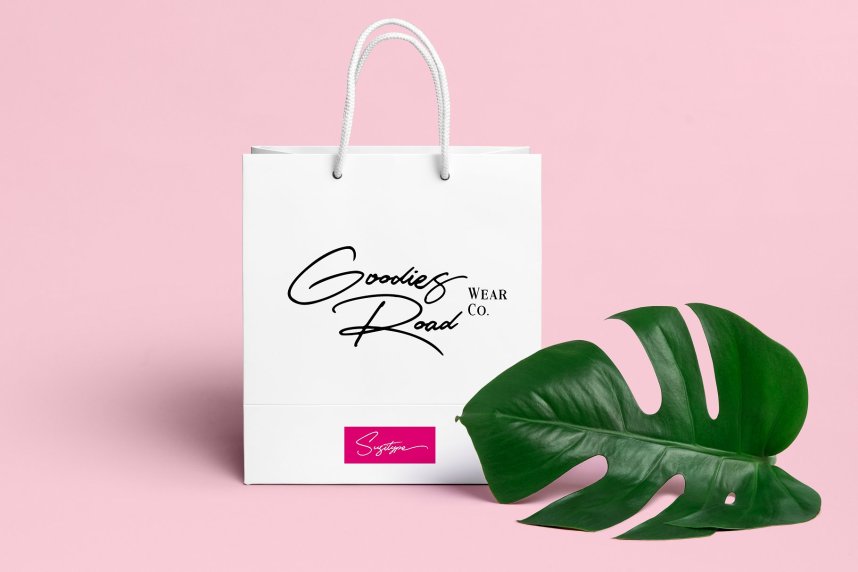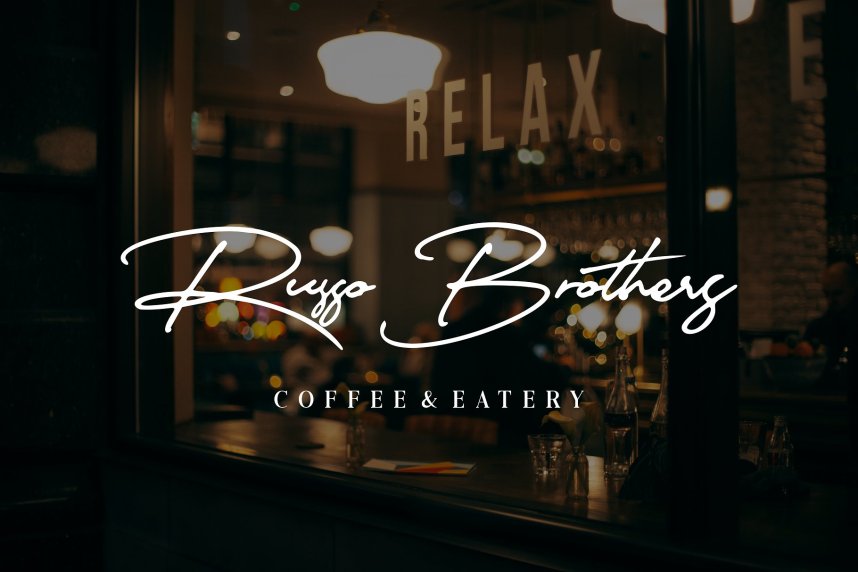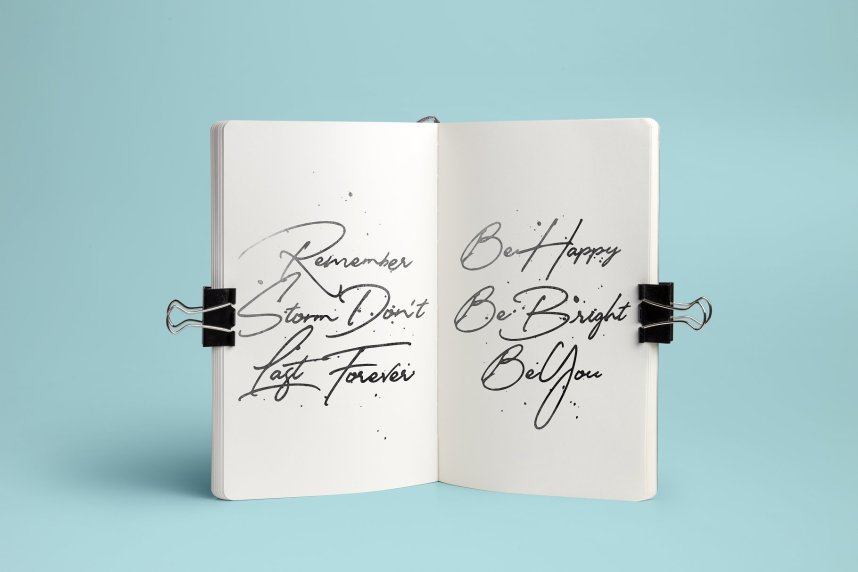
Matsury Script Font – Free Demo
New week with a handwriting style signature. Introducing Matsury Font. Matsury designed and shared by SusiType. Matsury is an elegant signature script. 100% handmade that you’ll feel the organic shape of it. This font will perfect for your any design project needs. Such as, logo, headline, quote, wedding card, and more. Matsury also come up with bunch of alternate characters to playing with. So you can mix and combine it.